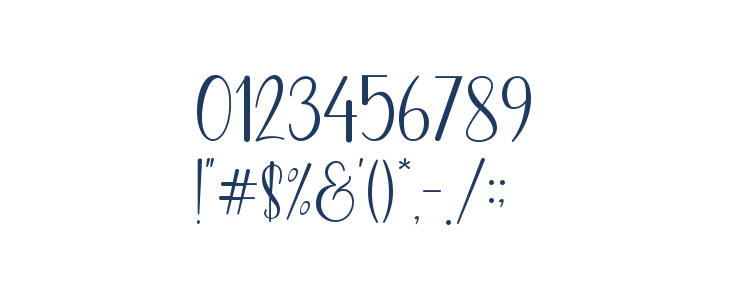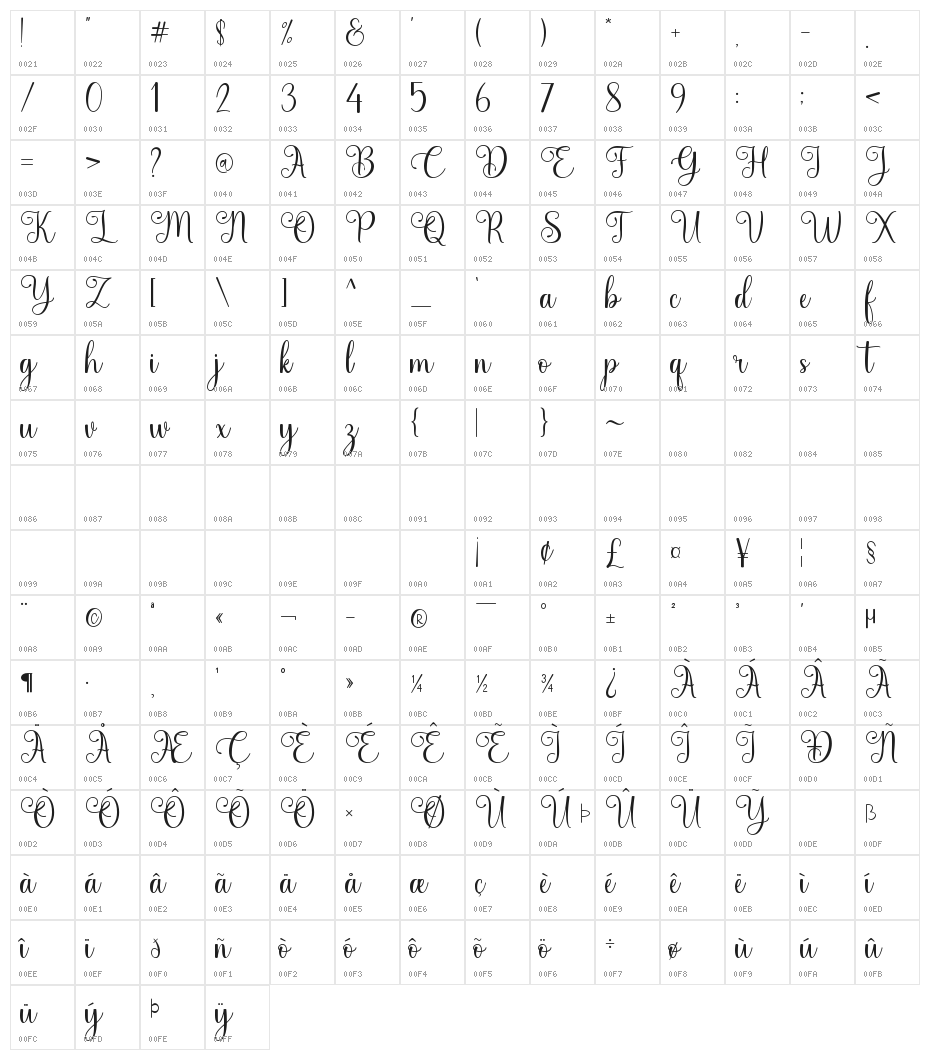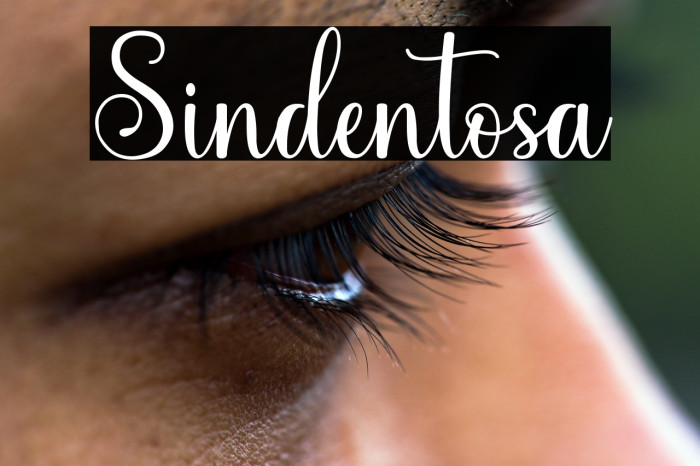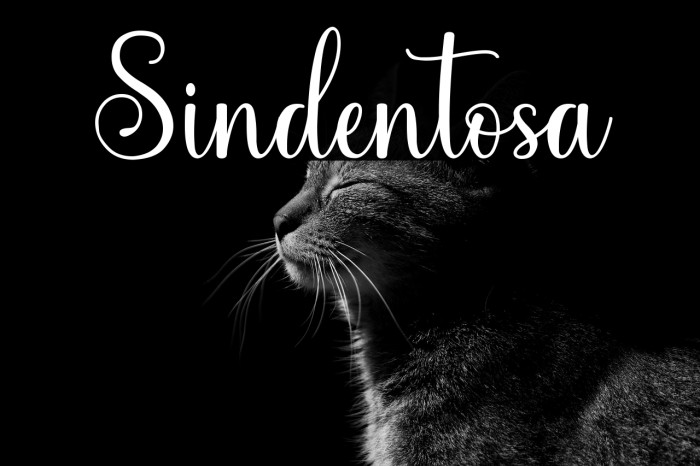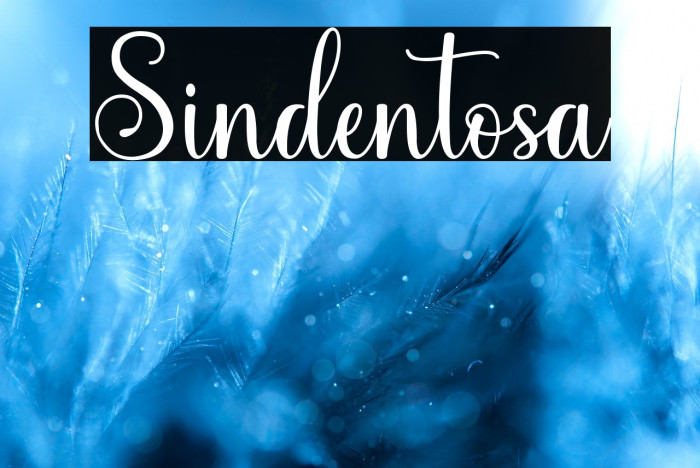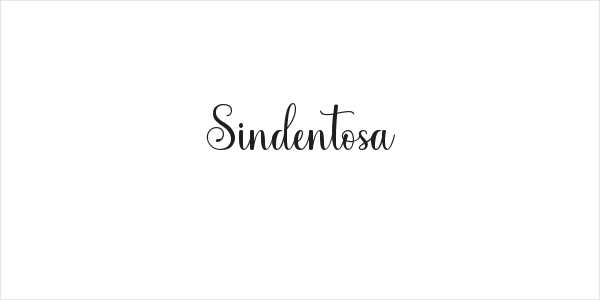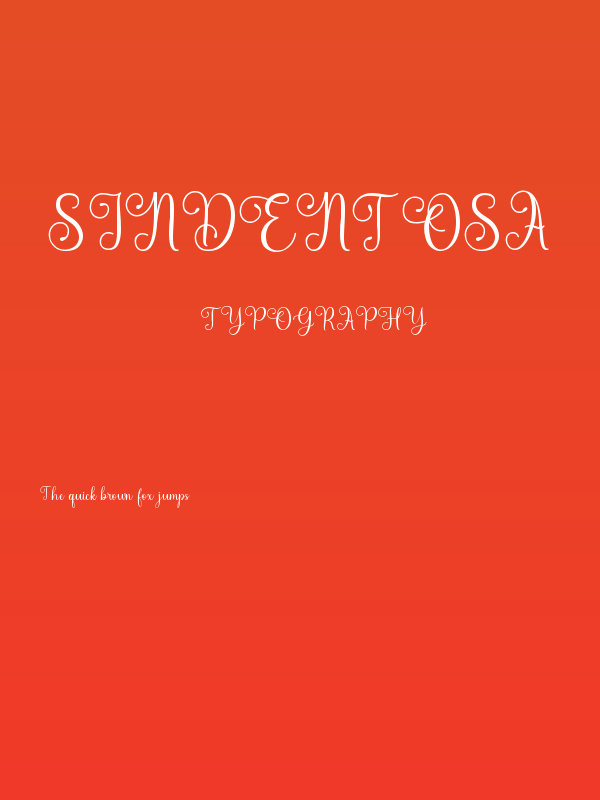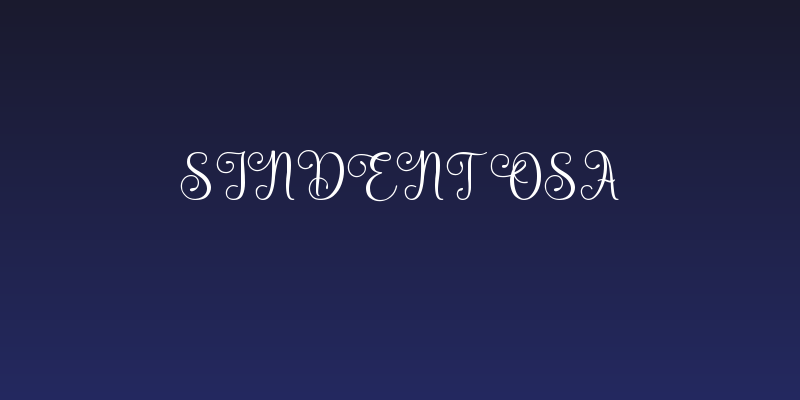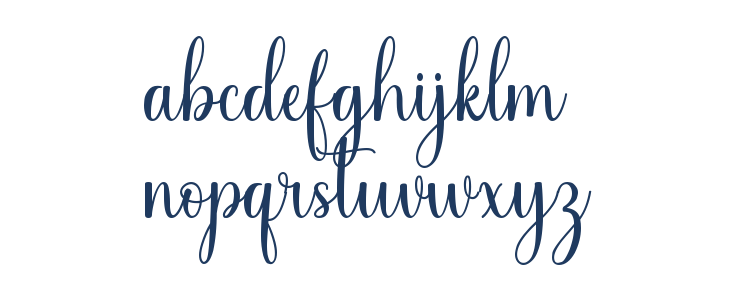
Sindentosa Font
Sindentosa Description
This font features a charming and elegant script style with a playful yet sophisticated flair. The uppercase letters are adorned with delicate loops and swirls, giving them a whimsical touch. The lowercase letters maintain a smooth and flowing appearance, with some characters extending below the baseline, adding to the font's graceful nature. The numerals are clean and easy to read, maintaining the overall aesthetic of the font. Special characters are thoughtfully designed to complement the script style, making this font versatile for various design needs.